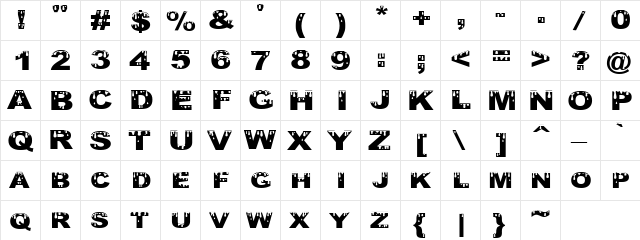
Optimistic Trends Regular
Design Context for Optimistic Trends Typeface
Optimistic Trends is a composed and adaptable typeface that performs quietly and consistently across a wide range of design contexts.